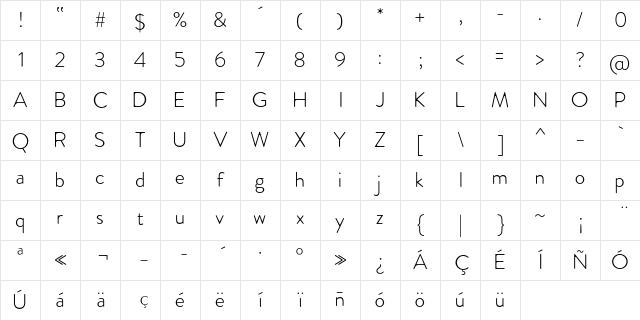
Febrero Light
Febrero Family
Design Context for Febrero
Febrero is a composed and adaptable typeface that performs quietly and consistently across a wide range of design contexts. Its slender proportions lend an understated elegance to any composition.